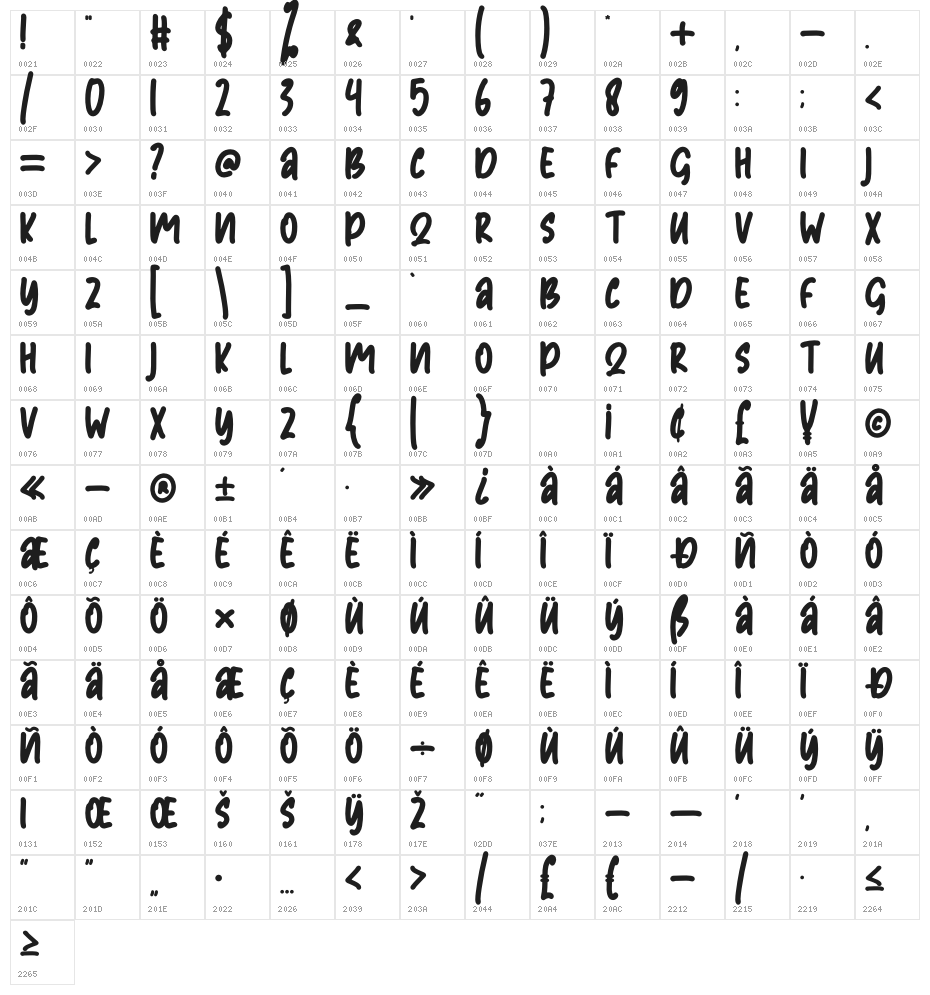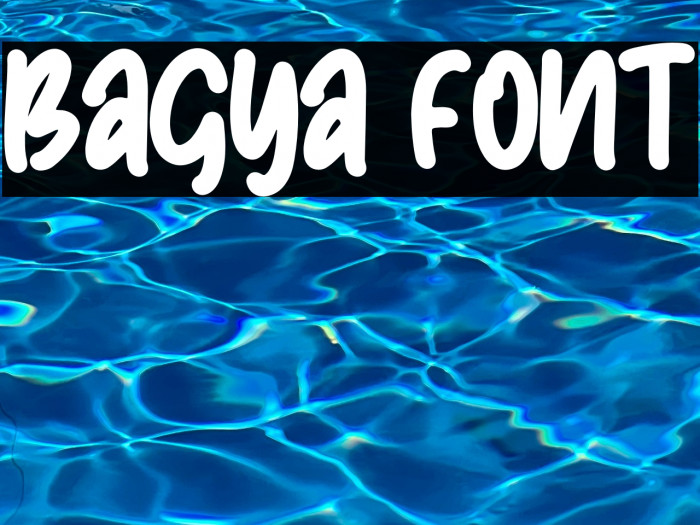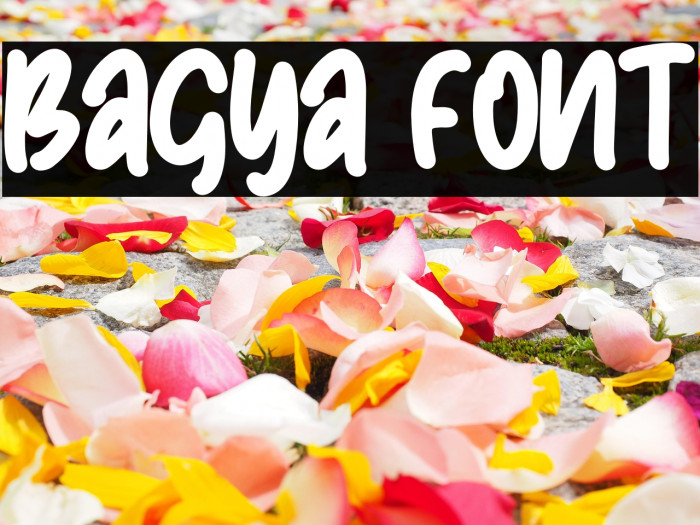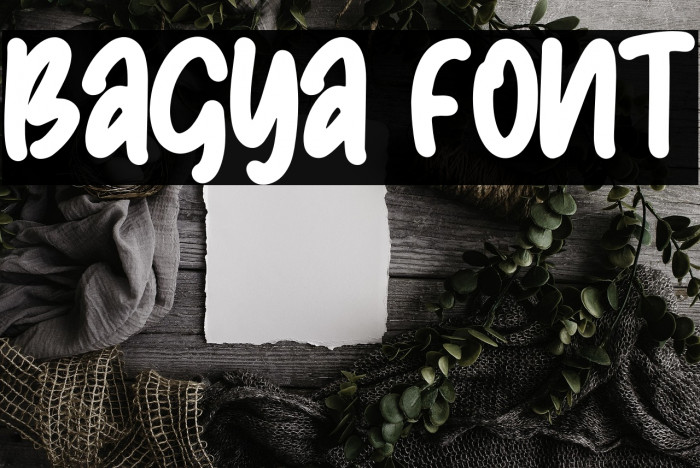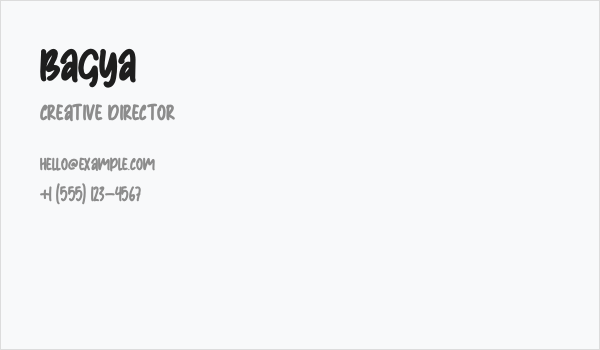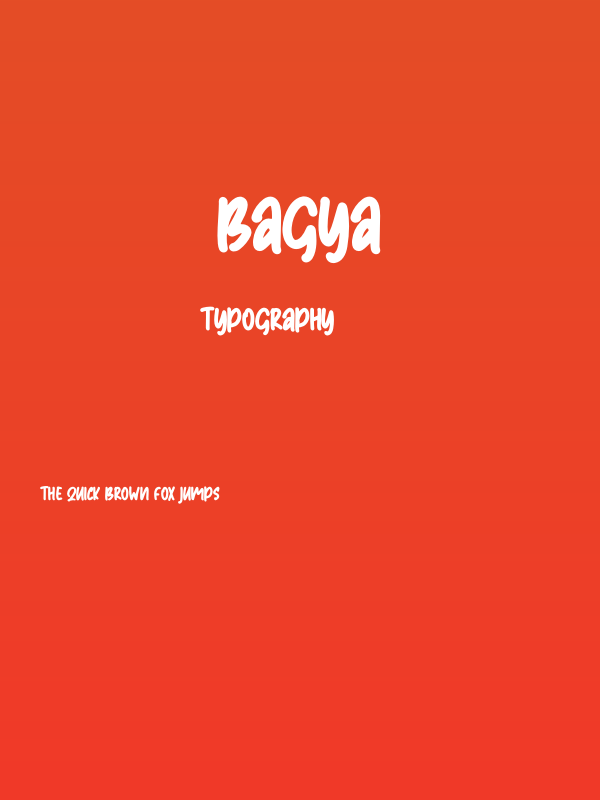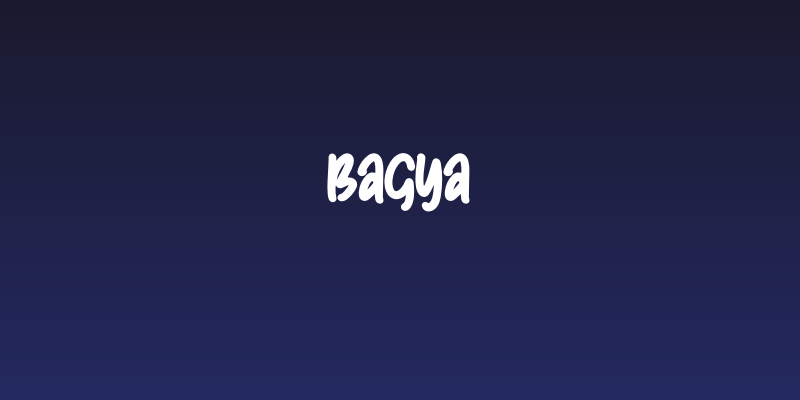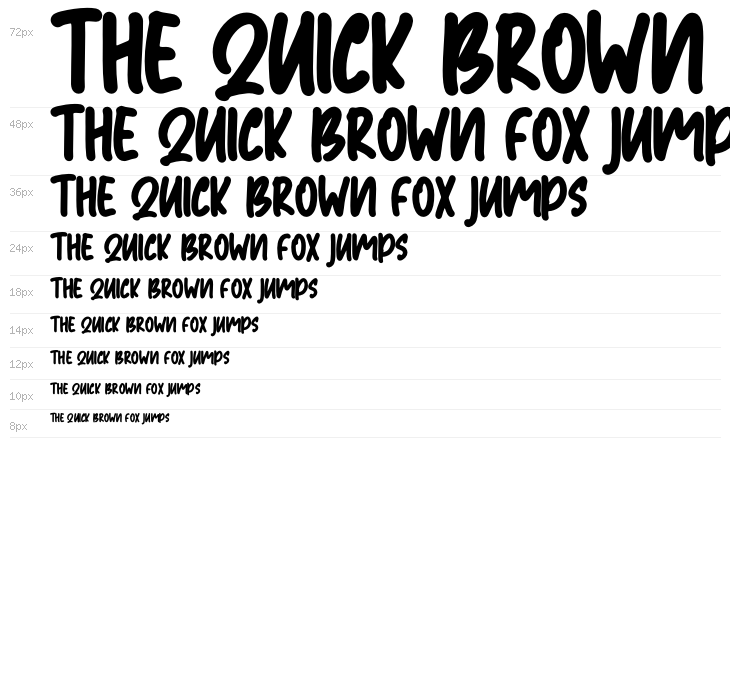
Bagya Font
Bagya Description
This font features a bold and playful handwritten style, characterized by its thick strokes and rounded edges. The letters have a casual and friendly appearance, with a consistent weight throughout. The uppercase and lowercase letters maintain a uniform style, enhancing readability while adding a touch of whimsy. The numbers and special characters are crafted with the same playful aesthetic, making them suitable for creative and informal designs. The overall look is dynamic and energetic, perfect for projects that require a personal and approachable touch.
| Proposed Projects | Ideal for greeting cards, children's books, playful branding, and social media graphics. |